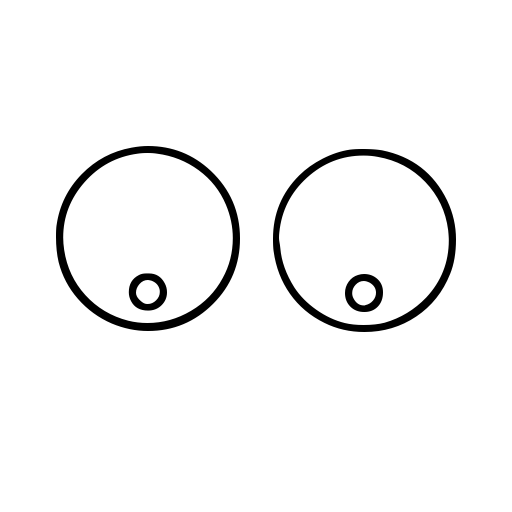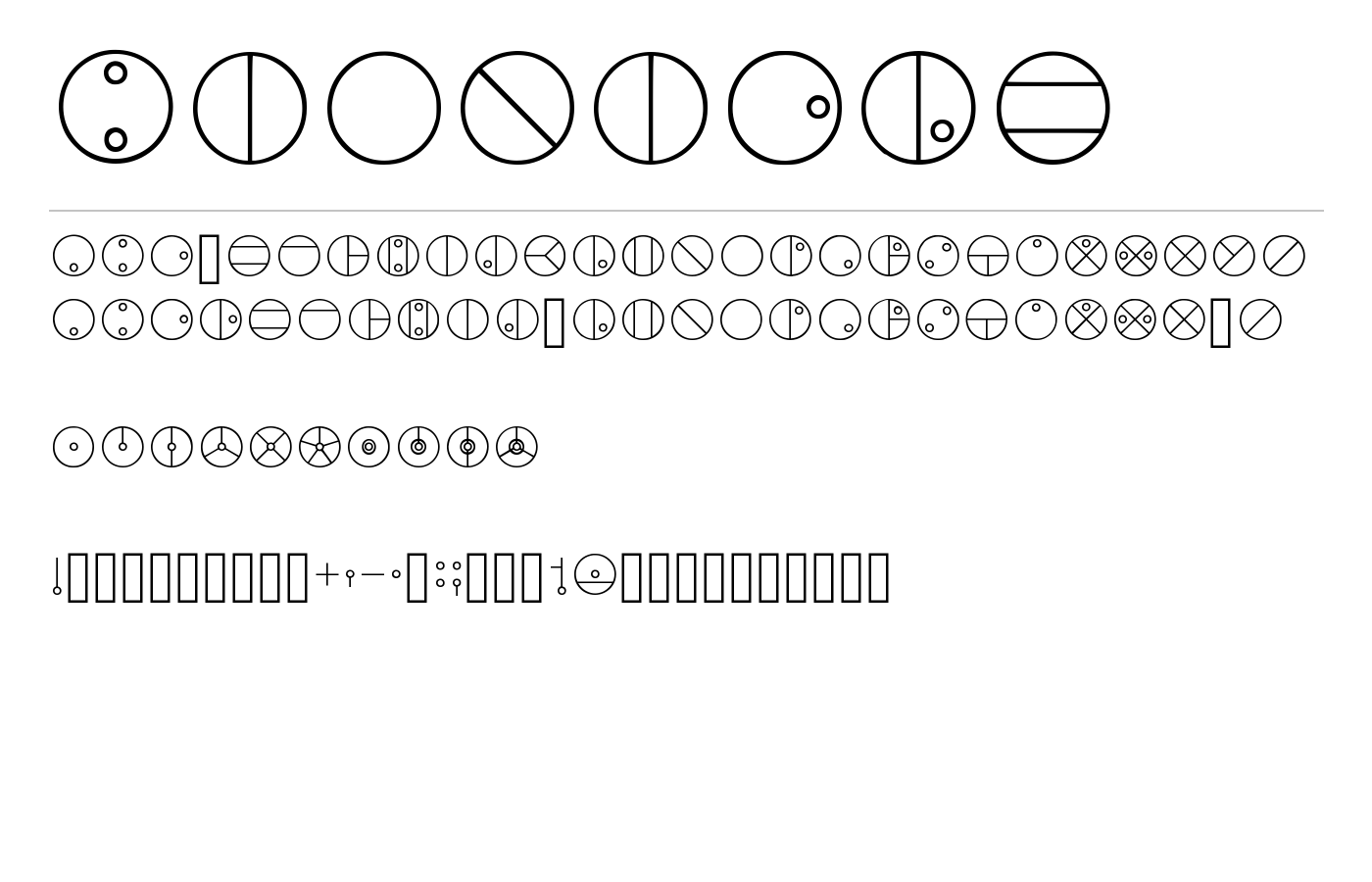
Bionicle Font is a unique, symbol-based typeface that features simple geometric shapes within circular outlines, giving it a futuristic and mysterious feel. Its clean, minimalist lines and abstract design make it ideal for sci-fi themes, games, or creative projects seeking an otherworldly and cryptic aesthetic. This font works best in logos, posters, and artistic displays where its unconventional style can stand out as a visual element rather than traditional text.
Bionicle Font
About Bionicle Font